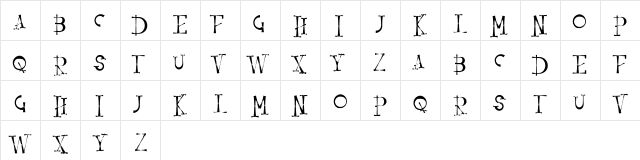
Resquro Halloween FREE Regular Font Preview
Resquro Halloween FREE Regular
Design Context for Resquro Halloween FREE Typeface
Resquro Halloween FREE is a composed and adaptable typeface that performs quietly and consistently across a wide range of design contexts.